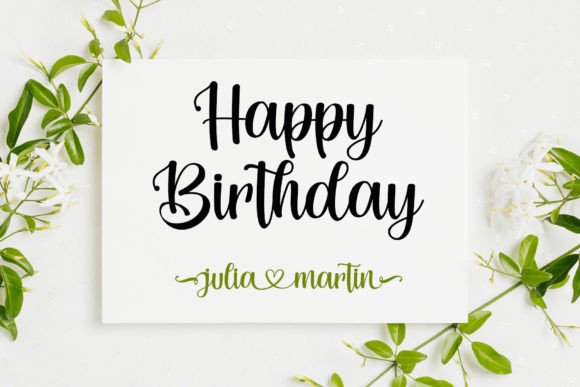
Me Love You Font
Me love You is a lovely script font featuring flowing letters that will give your designs a unique sweet look. Me love You is perfect for logos, greeting cards, brand identity, craft designs, DIY projects, book titles, wedding invitations, packaging, and more.